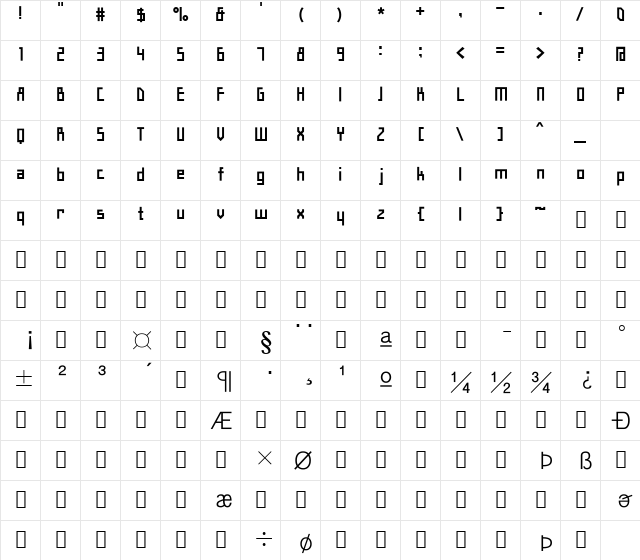
HYShortSamul-Medium Regular
Design Context for HYShortSamul-Medium Typeface
HYShortSamul-Medium takes a measured approach to typography — its balanced proportions and neutral character make it a reliable workhorse for both digital and print work.
Pro Tip: Use HYShortSamul-Medium in both headline and body roles to test its range before committing to a single application.